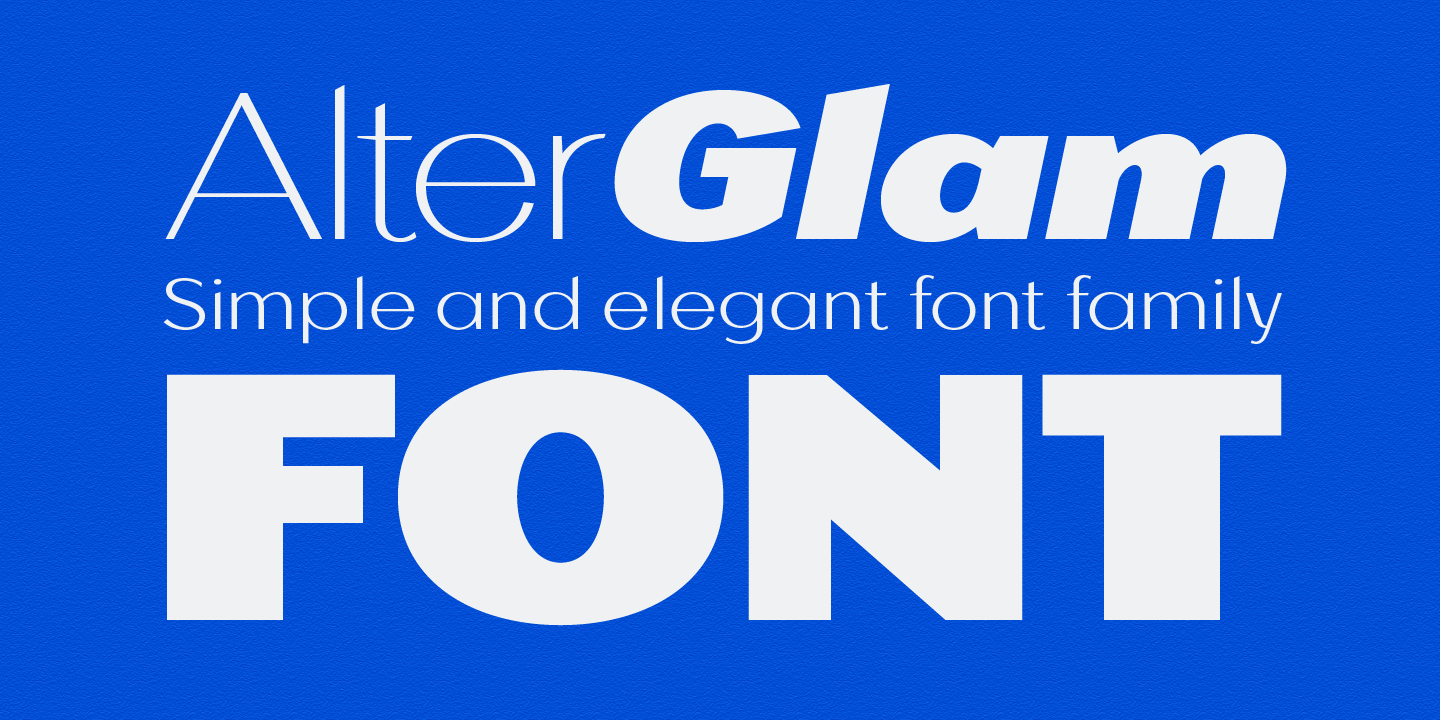
Alterglam Font is perfect for alternative fashion branding, edgy beauty campaigns, underground music promotions, avant-garde art exhibitions, rebellious lifestyle magazines, alternative rock band logos, indie fashion labels, unconventional beauty products, alternative culture events, edgy nightclub identities, subculture merchandise design, and non-conformist brand communications. This striking typeface excels in applications requiring alternative sophistication and rebellious glamour, making it ideal for alternative fashion brands, underground music labels, edgy beauty companies, and businesses targeting audiences seeking unconventional style and alternative glamour.
What makes Alterglam Font exciting is its captivating ability to blend rebellious edge with sophisticated glamour through alternative typography. The font features distinctive letterforms with edgy angles and glamorous character variations that perfectly balance underground culture with high-fashion sophistication. Its bold construction and alternative design create an atmosphere of rebellious luxury and unconventional elegance, while maintaining excellent readability across all applications. The font's distinctive personality embodies the essence of alternative glamour and sophisticated rebellion, making it perfect for brands seeking to establish edgy, fashion-forward identities that resonate with audiences seeking unconventional beauty and alternative style.
The Alterglam Font family typically includes multiple weights such as Light, Regular, Medium, Bold, and Black variations, along with their corresponding italic styles. Many collections also feature alternative alternates, edgy ligatures, and glamorous decorative elements that enhance the font's rebellious character. Some comprehensive packages include alternative symbols, edgy borders, and subculture glyphs that provide complete design flexibility for alternative fashion and underground projects promoting rebellious glamour and unconventional sophistication.
Alterglam Font Free Download represents the perfect fusion of alternative aesthetics and typographic excellence. This remarkable typeface brings instant edge and glamorous appeal to any project, making it particularly valuable for alternative fashion brands, underground music labels, and edgy companies seeking to establish rebellious, sophisticatedly alternative brand identities. The font's versatile nature allows it to perform strikingly in both bold alternative displays and detailed underground communications.
Designers appreciate Alterglam Font for its ability to instantly convey alternative sophistication, rebellious glamour, and unconventional style that connects with audiences seeking edgy fashion and alternative culture experiences. The font's excellent construction ensures smooth performance across various media and applications, while its alternative appeal adds immediate underground authenticity to any design project. The comprehensive character set includes standard Latin characters, numerals, punctuation marks, and special symbols, making it suitable for alternative communications, underground publications, and diverse rebellious applications.
This exceptional typeface successfully captures the essence of alternative glamour and rebellious sophistication while offering modern functionality, providing designers with an authentic tool for creating memorable and impactful communications that resonate with audiences seeking unconventional style, alternative beauty, and sophisticated rebellion.